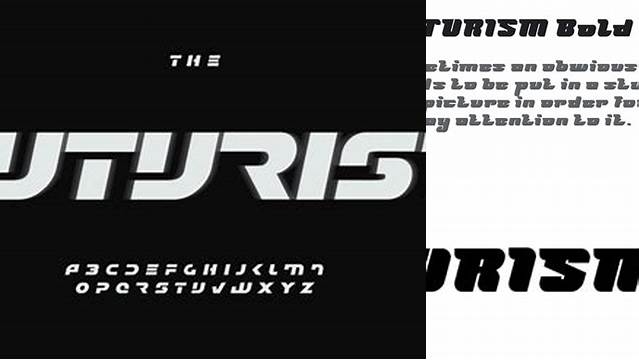
Hey guys! Ever wanted to inject a dose of the future into your designs? Well, Futurism Bold Font is the perfect tool to achieve just that. This article is your ultimate guide to the Futurism Bold Font, including where to snag it for free, what makes it so awesome, and how you can use it to create some seriously eye-catching visuals. We'll dive into the font's unique characteristics, explore its ideal applications, and even provide some handy tips and tricks to make your designs pop. Get ready to blast off into the world of futuristic typography!
What is Futurism Bold Font?
So, what exactly is Futurism Bold Font? In a nutshell, it's a typeface that captures the essence of the future, often characterized by clean lines, geometric shapes, and a sense of modernism. Think sleek, edgy, and a touch mysterious. This font style is all about conveying a sense of innovation, technology, and forward-thinking concepts. It's like giving your text a superpower to communicate ideas related to innovation. It's more than just letters; it's a statement. When you download Futurism Bold Font free, you get access to a design element that can significantly elevate your projects. Its bold nature ensures that your message is not just heard but seen – and remembered. The font's visual impact makes it a fantastic choice for projects where you need to grab attention instantly. Futurism Bold Font is often designed with a strong emphasis on readability and visual appeal, ensuring that your text is not only stylish but also easy on the eyes. The font's unique design elements can add a layer of sophistication and modernity to your work, making it perfect for a variety of applications. The geometric shapes and clean lines associated with the Futurism Bold Font often reflect modern design trends, making it a relevant and up-to-date choice for designers. Whether you're creating a website, a poster, or a logo, this font can provide that extra edge to help your work stand out. It's an excellent option if you want to communicate ideas related to technology, science, or progress. If you are looking for a font that is modern and bold, this is the perfect pick. By choosing this font, you're not just selecting a typeface; you're making a statement about your design philosophy and vision. So, go ahead, experiment with the Futurism Bold Font and see how it transforms your creative projects. The possibilities are endless!
Using Futurism Bold Font in Your Designs
Okay, you've got your Futurism Bold Font – now what? This font is super versatile, but it really shines in certain applications. Think about where you want to make a bold statement:
- Headlines and Titles: This is where the font truly flexes its muscles. Its bold nature makes headlines pop, ensuring they grab the reader's attention immediately. Use it for website headings, poster titles, or any text that needs to stand out.
- Logos: The clean lines and modern aesthetic of the Futurism Bold Font make it perfect for logo design. It can instantly communicate the brand's modern values. It's ideal for tech companies, startups, and any brand aiming to project a futuristic image.
- Posters and Flyers: Want to create a visually striking poster? This font is your secret weapon. Combine it with strong imagery and a compelling message for maximum impact.
- Website Design: Incorporate it into your website's headings, navigation, or call-to-action buttons to give your site a contemporary look. Using this font enhances the overall user experience and modern design.
- Social Media Graphics: Create eye-catching social media posts, graphics, and ads. Its bold style ensures your message doesn't get lost in the noise.
Conclusion: Unleash Your Design Creativity
Alright, folks, that's a wrap on our deep dive into the Futurism Bold Font. You now have the knowledge to download it for free, understand its unique characteristics, and apply it to your designs like a pro. Remember that this font is a powerful tool that can transform your designs. So, go out there, experiment, and have fun! The world of futuristic typography awaits! Happy designing! The Futurism Bold Font is a great tool for making an impact on your design projects. So, download it, explore its potential, and let your creativity run wild. With the knowledge gained, you can enhance the visual appeal of your designs. This font is an excellent choice for adding a touch of modernism and innovation. Embrace the power of this font. So, go ahead and make something amazing!